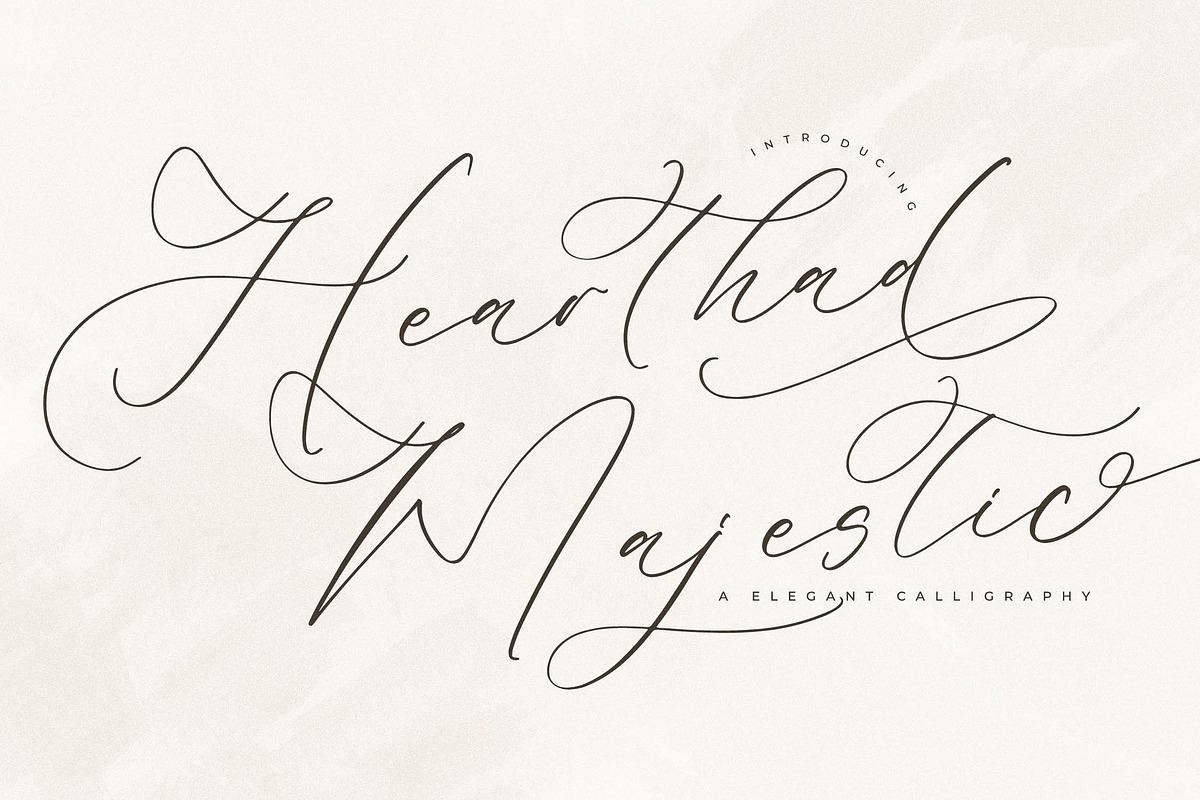
Hearthad Majestic is an elegant calligraphy font designed to bring a luxurious and sophisticated touch to various design projects. Its unique style and modern appearance make it particularly suitable for applications such as elegant and luxury logos, book or movie title designs, fashion brands, magazines, clothing, lettering, and quotes.
Design Style: Hearthad Majestic offers a luxury script with a distinctive and contemporary look, enhancing the elegance of your designs.
Character Set: The font includes standard glyphs, alternates, and ligatures, providing versatility and creative possibilities.
Incorporating Hearthad Majestic into your design projects can add a touch of elegance and luxury, enhancing their visual appeal with its sophisticated calligraphic style.